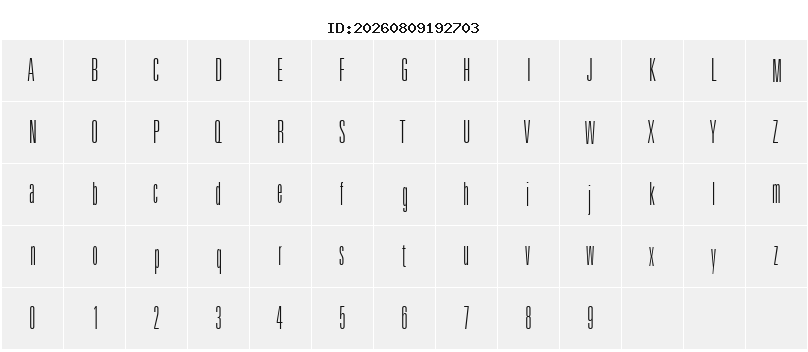
About Panther.ttf
Panther.ttf is a modern, elegant sans-serif font designed for ultimate readability and visual harmony. Perfect for branding, headlines, web design, and print materials.